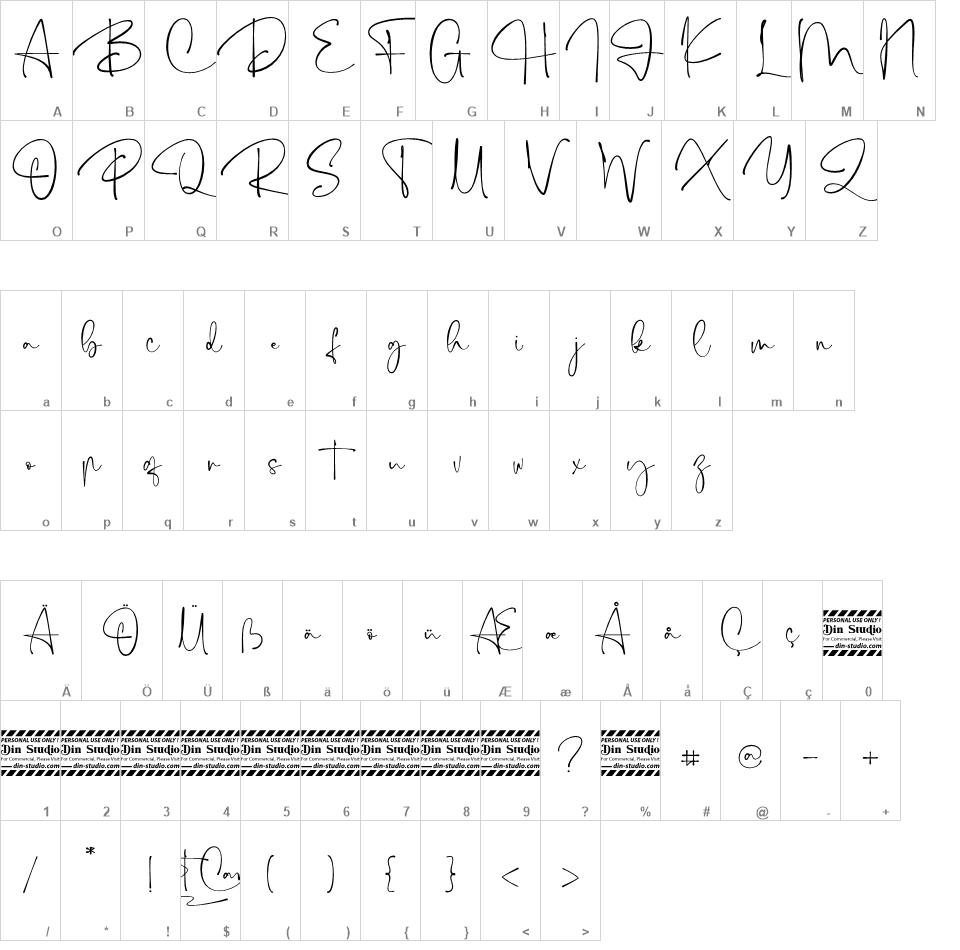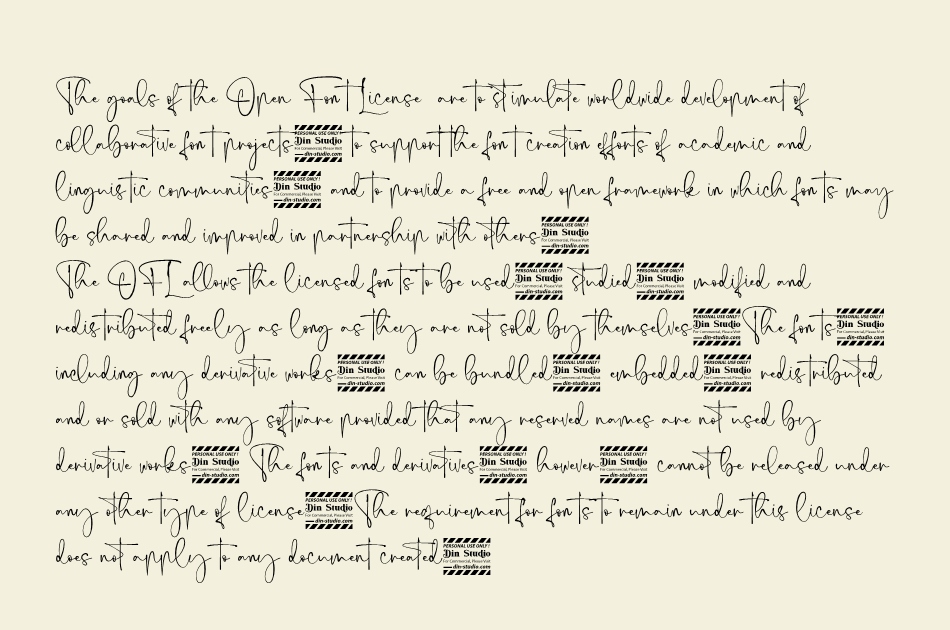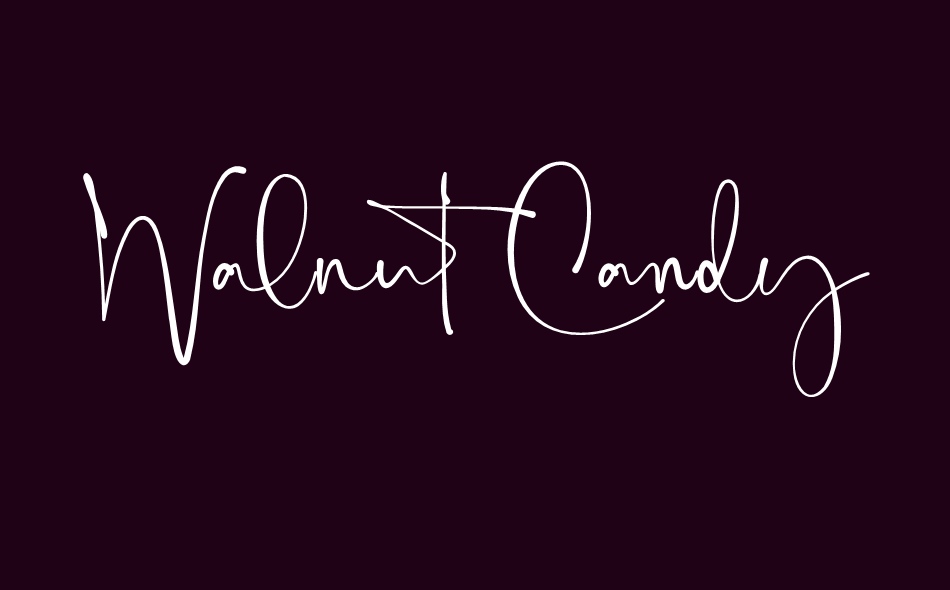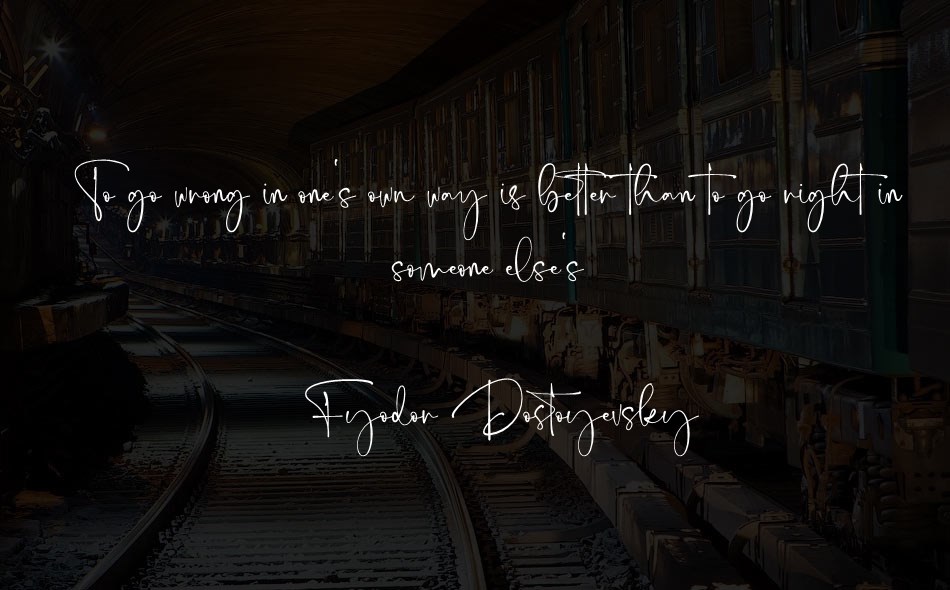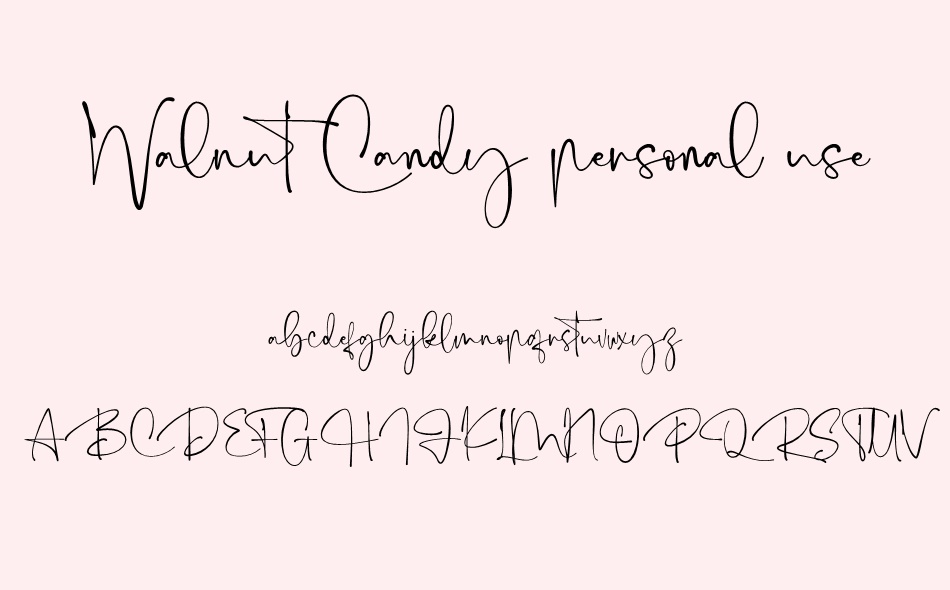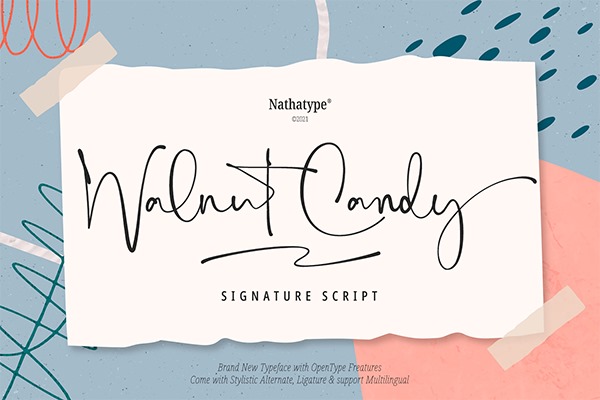
Walnut Candy font
Walnut Candy is a handcrafted font designed to bring your branding to life and add a touch of elegance,
modernity and style. Perfect for social media branding projects, fashion designs, printed quotes, packaging,or even as a stylish text overlay to any background image.